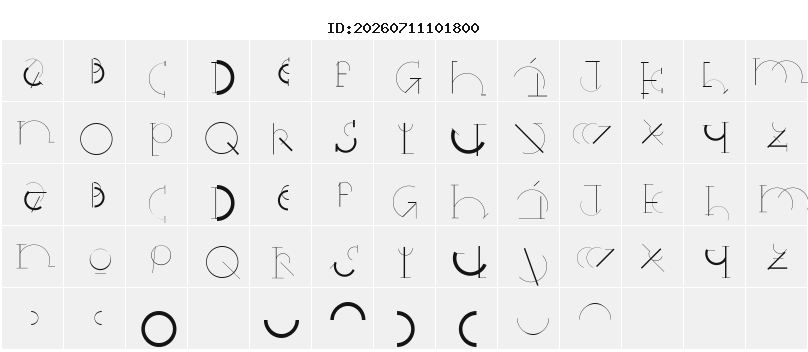
HalfCircleAlphabetXP.ttf is a modern, elegant sans-serif font designed for ultimate readability and visual harmony. Perfect for branding, headlines, web design, and print materials.